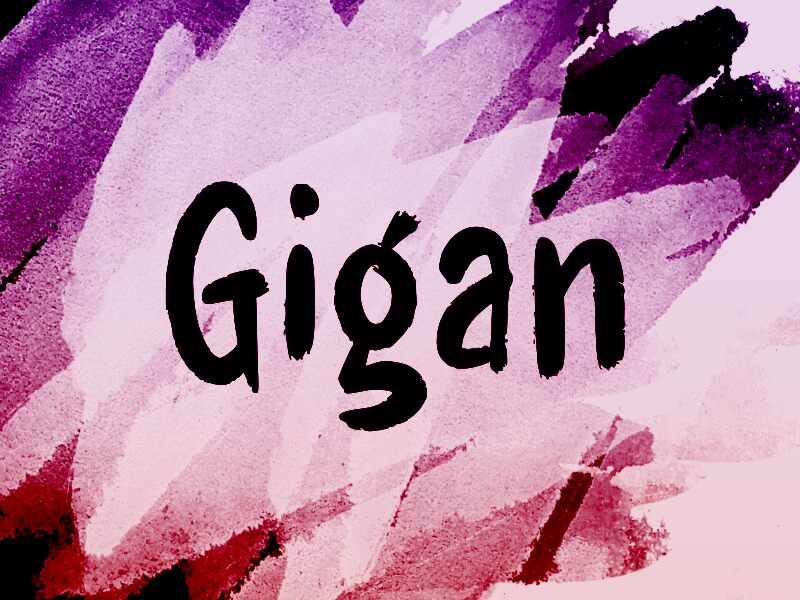
Gigan
Gigan is a captivating brush font created by designer wep. This dynamic, condensed typeface exudes an effortless charm, blending bold strokes with smooth, organic curves. Its unique character invokes a sense of movement and energy, making it a versatile choice for a variety of design applications.
The Gigan font's distinctive appearance lends itself well to attention-grabbing headlines, impactful branding, and expressive storytelling. Its condensed width allows for efficient text composition, while the brush-like texture adds a touch of artistry and personalization to any design. Whether used for editorial layouts, product packaging, or contemporary signage, Gigan's distinctive flair is sure to captivate and engage.